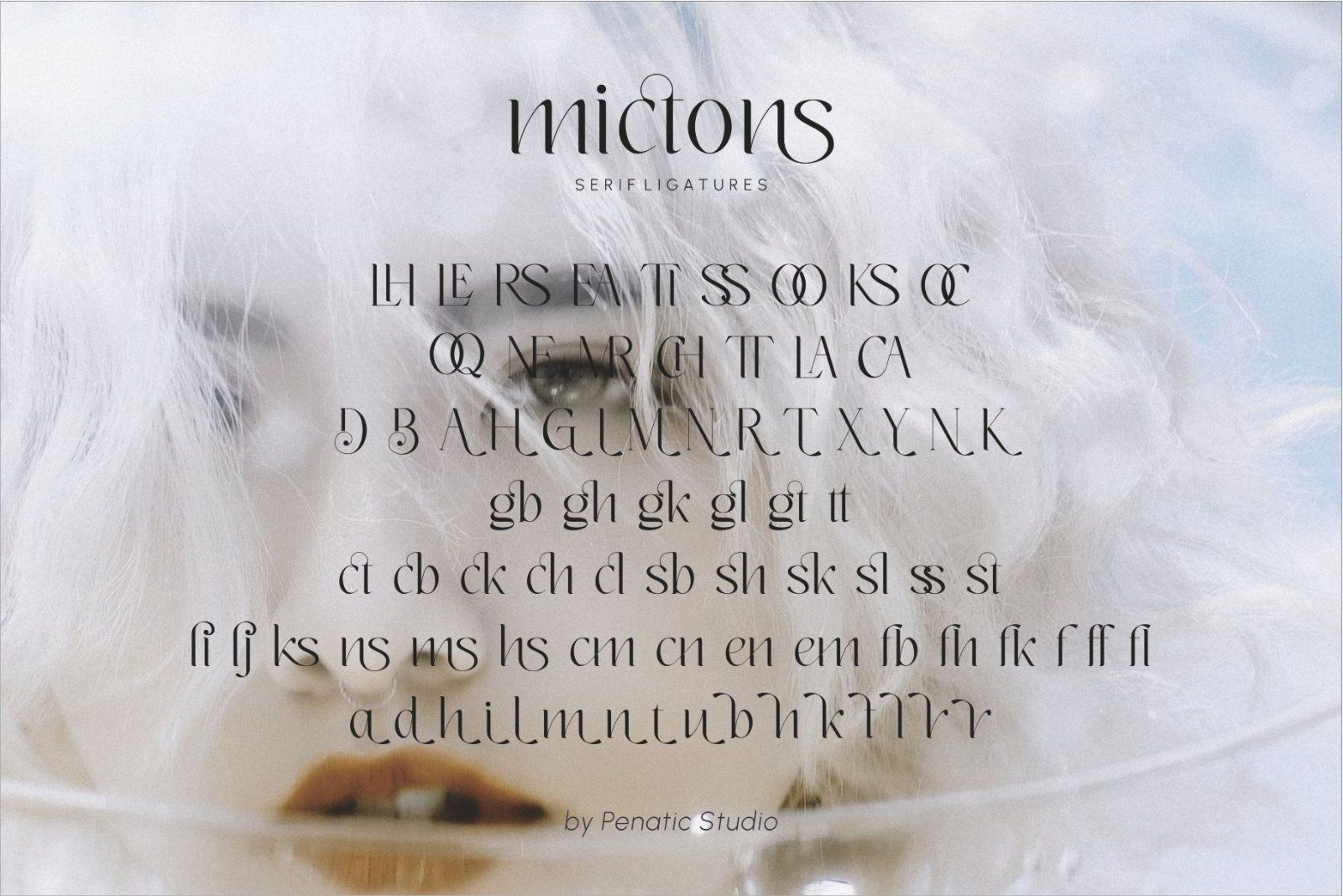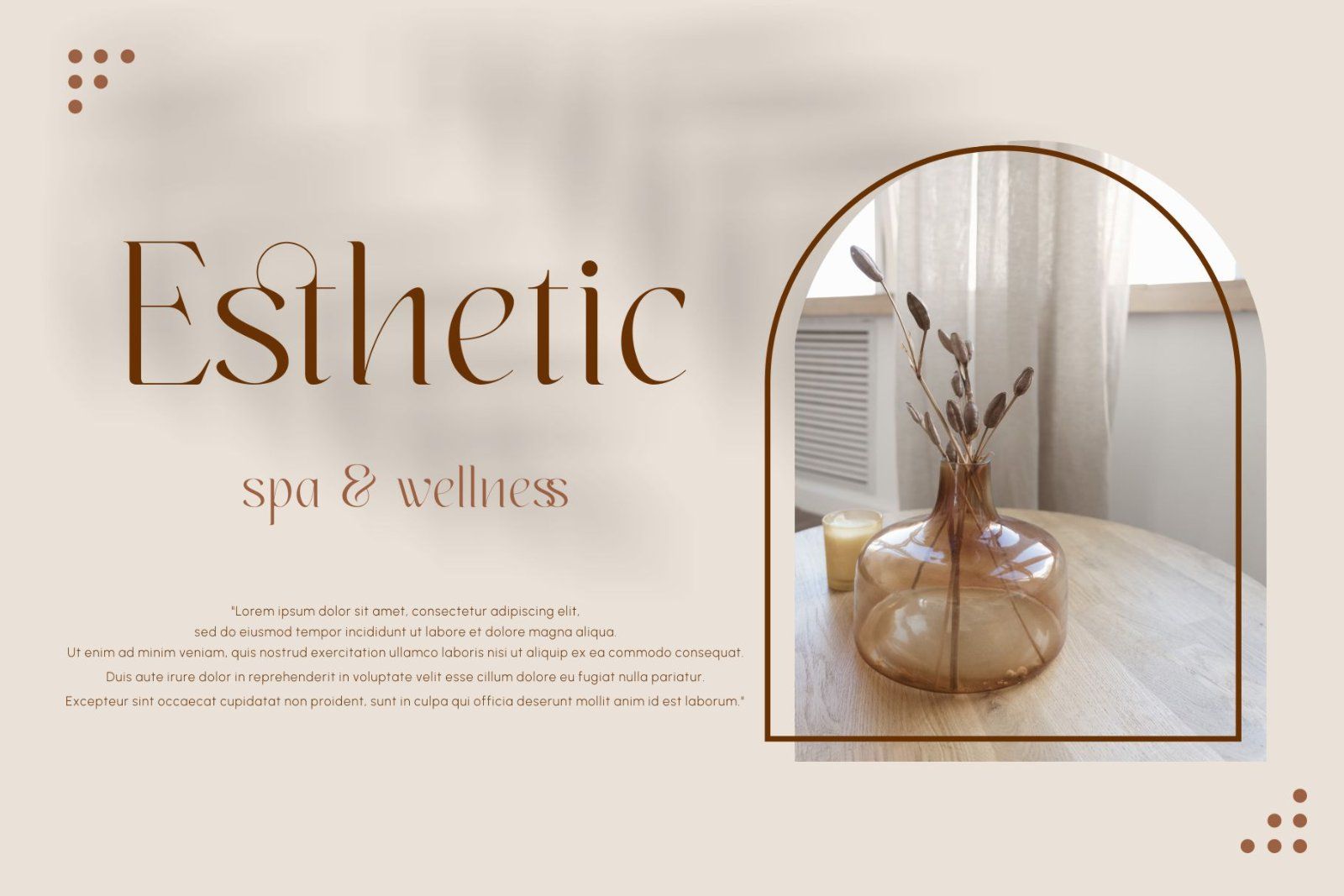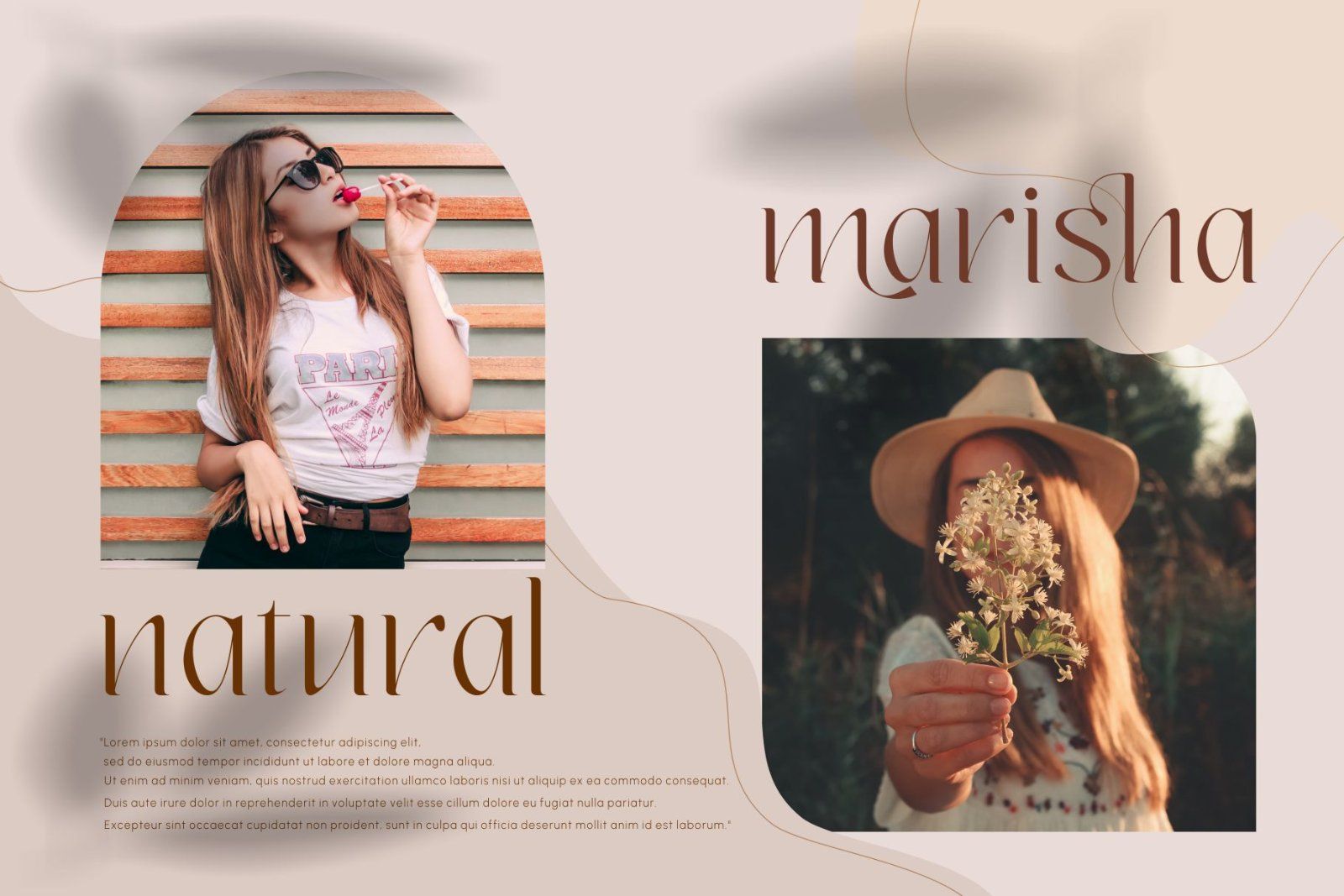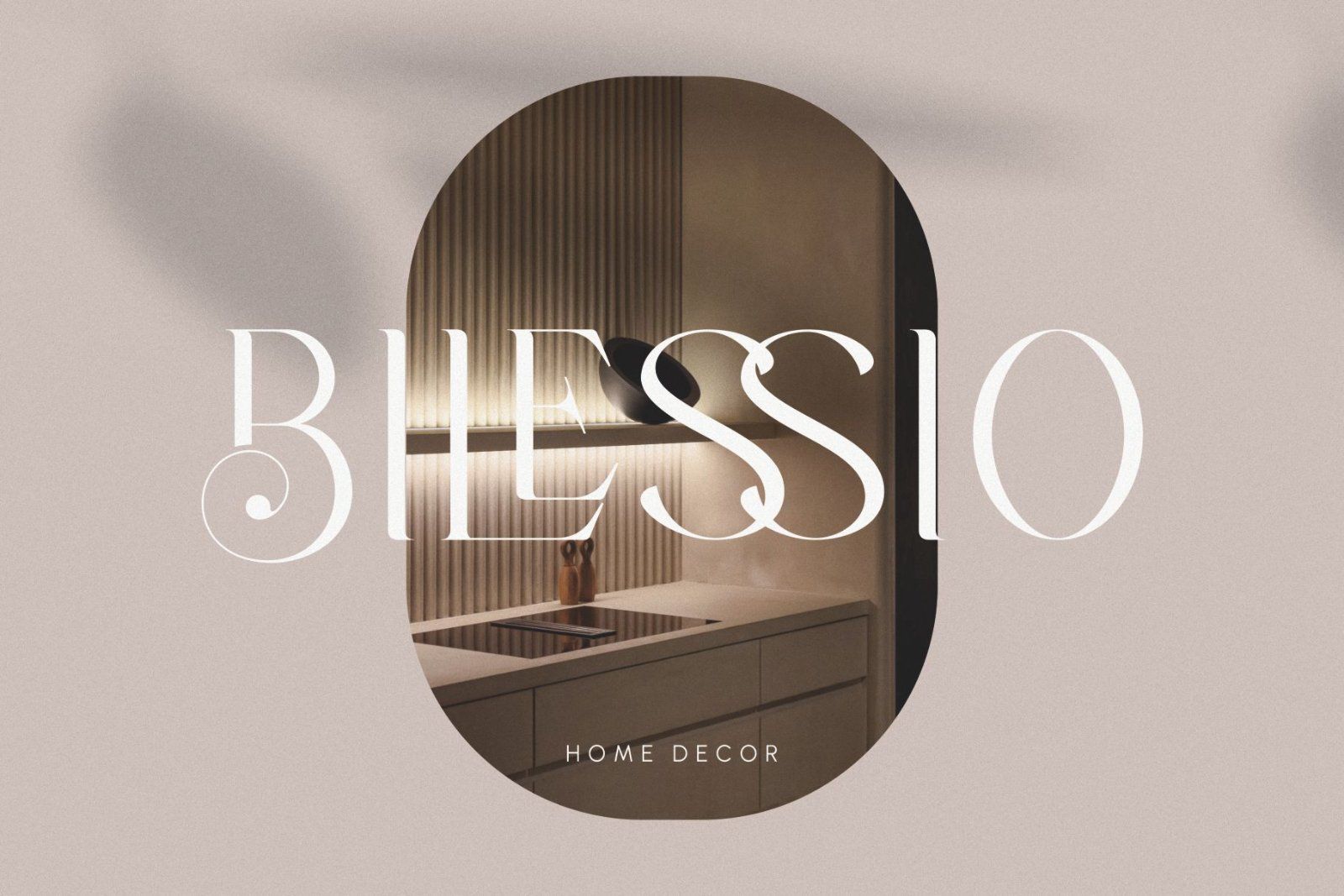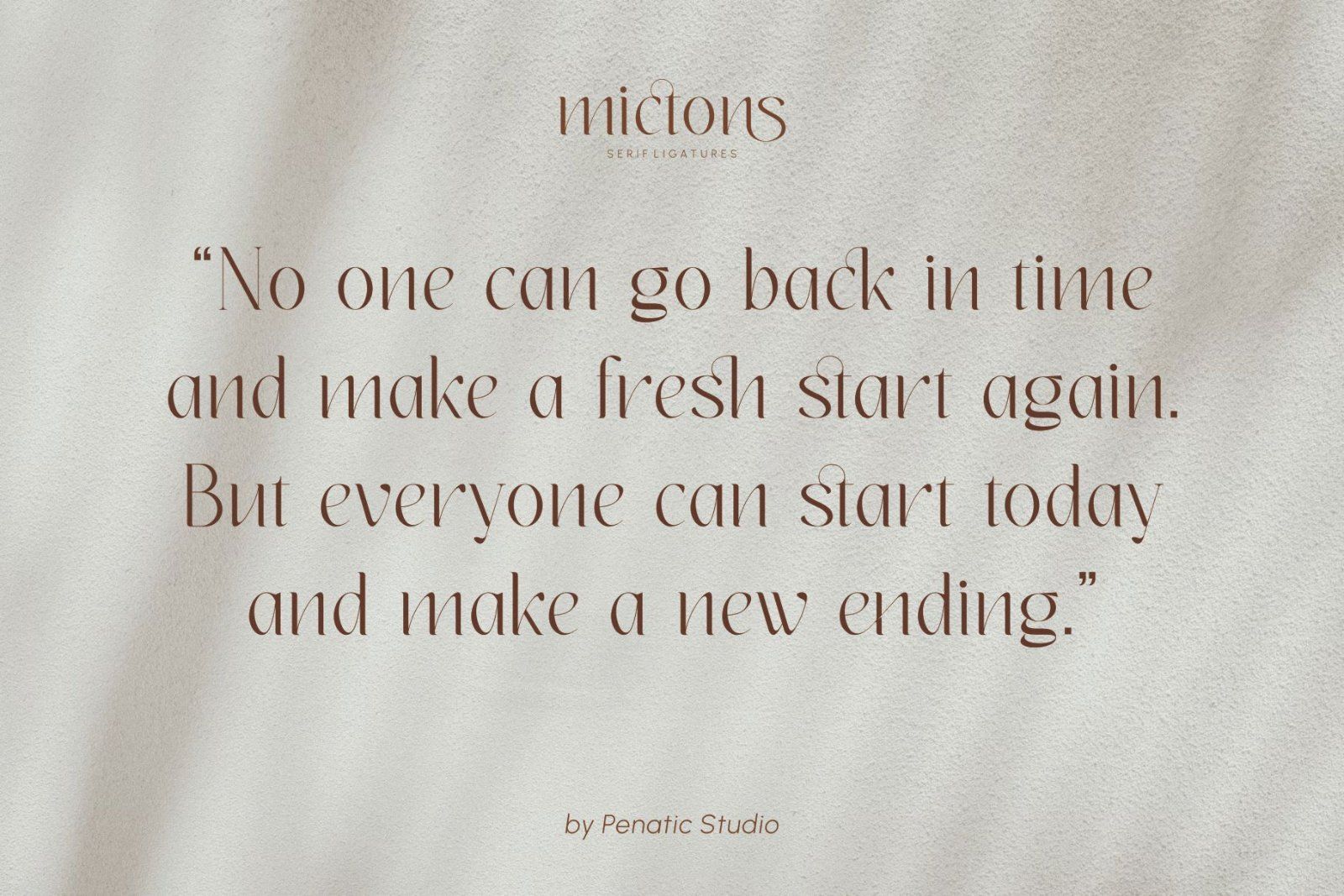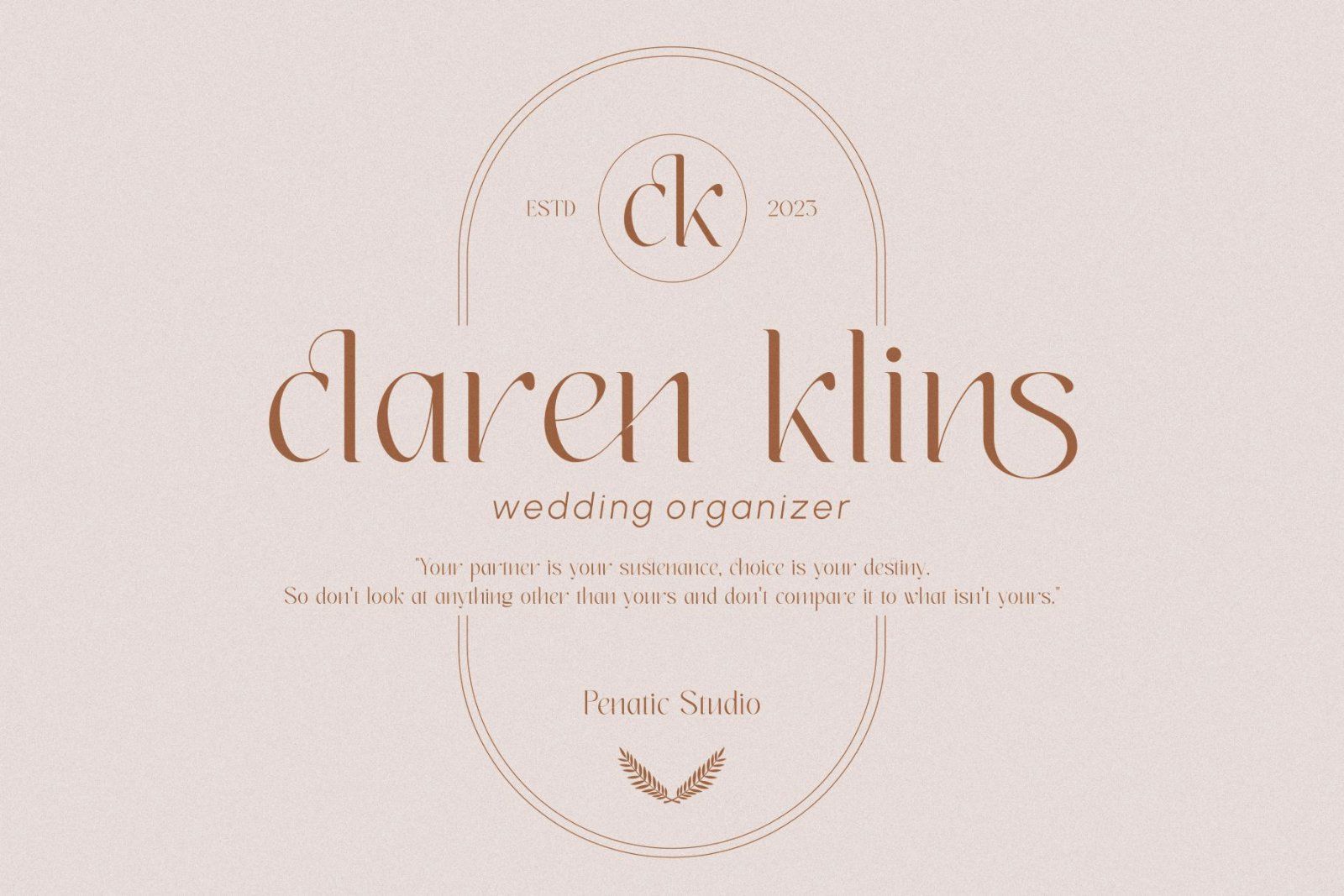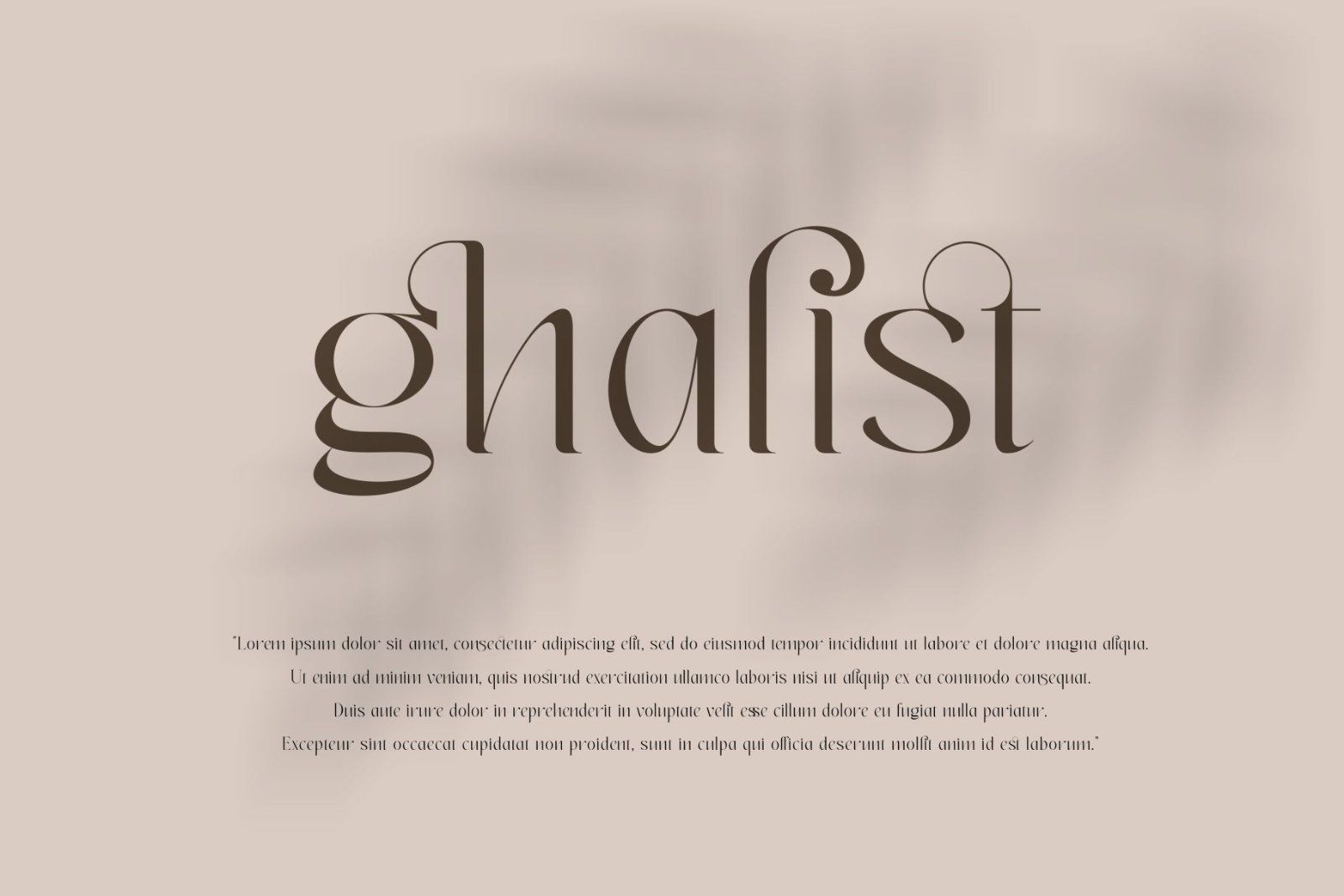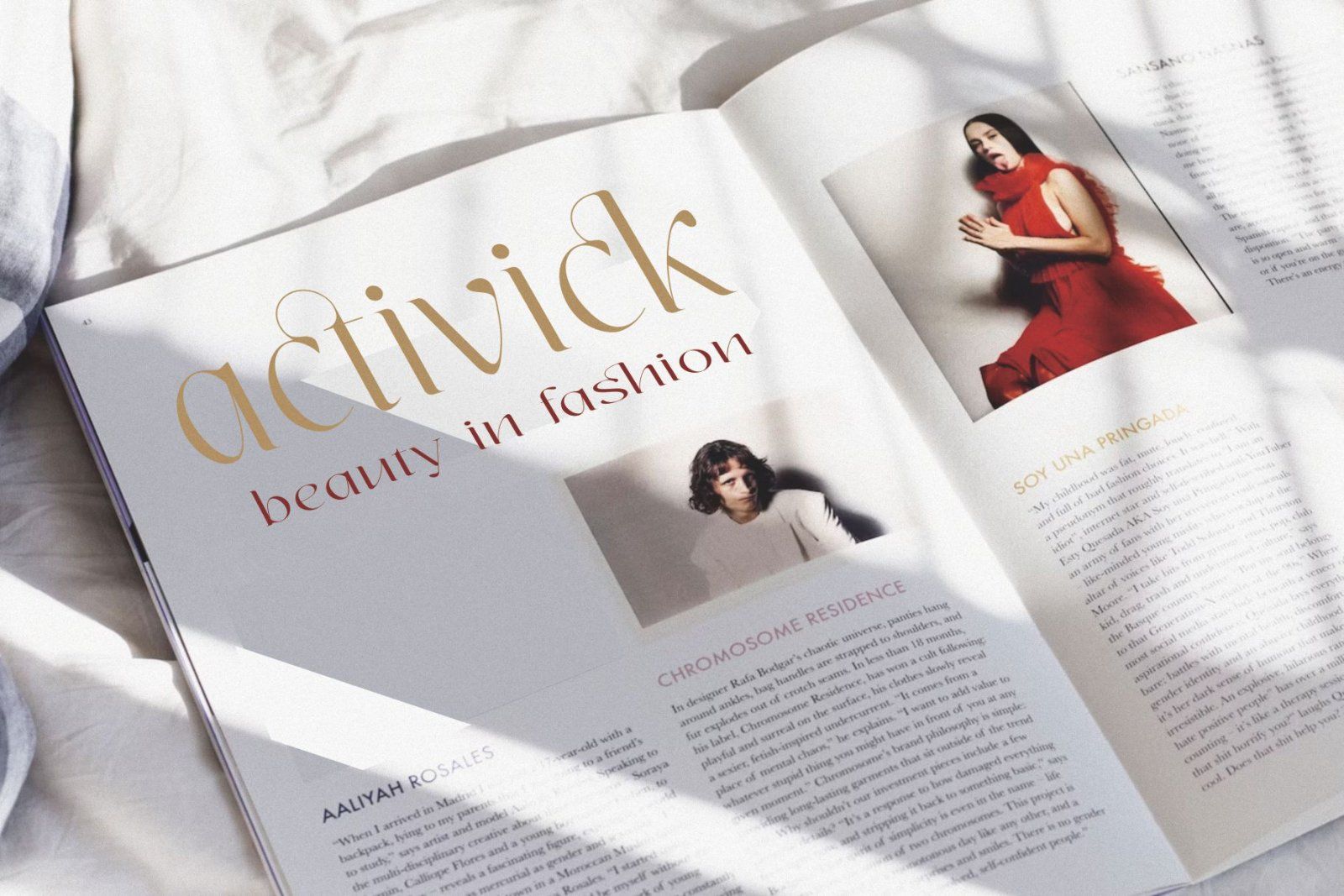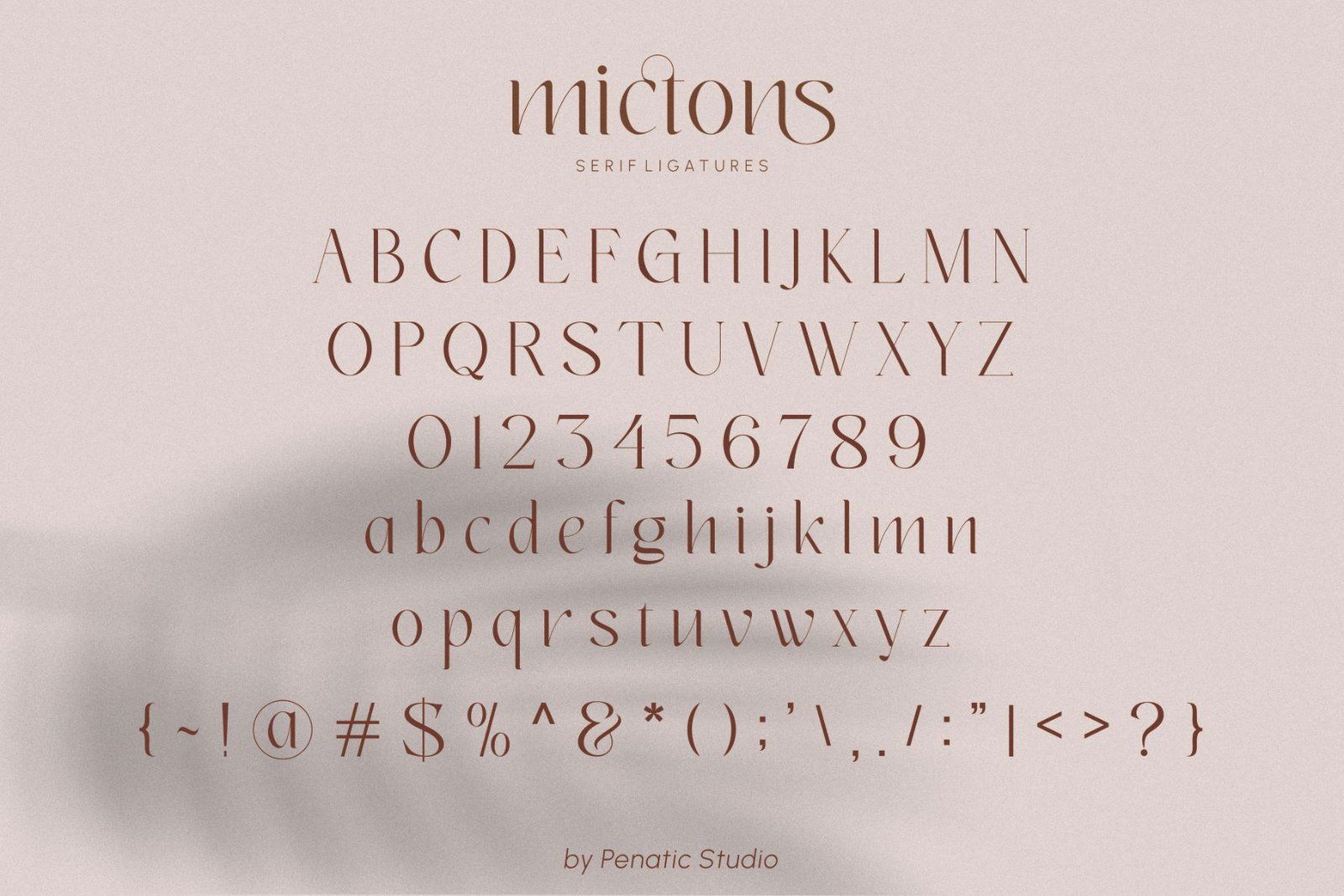
MarketplaceFontsMictons _ Clean, Smooth Typeface
mictons _ clean, smooth typeface with a nice touch of ligature. This typeface features many alternative options and ligatures, perfect for creating designs such as packaging, logos, templates, quotes, branding etc.